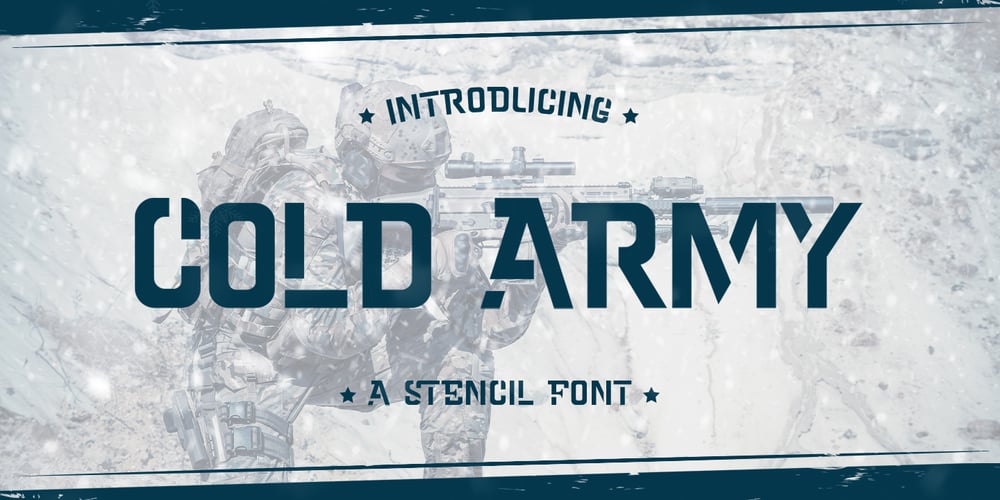
Cold Army Font Family was designed by Hilmius Akbar and published by Typefactory. Cold Army contains 1 styles and family package options. Cold Army is a stencil display font.Strong and delicate it makes a statement when used.Use this font for your designs and explore its endless possibilities.